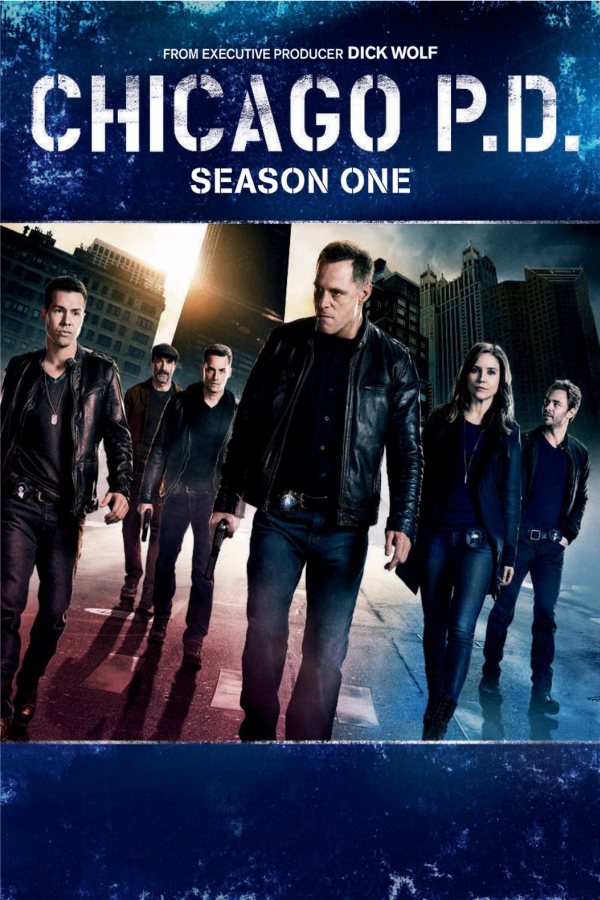
Chicago P.D. Font
DramaChicago P.D. is a police procedural drama series that focuses on the intelligence unit of the Chicago Police Department as they tackle high-stakes cases and corruption in the city.
The television program showcases a stencil typeface that bears a close resemblance to Housebroken Clean. This font is a commercial one and more information about it can be found here.